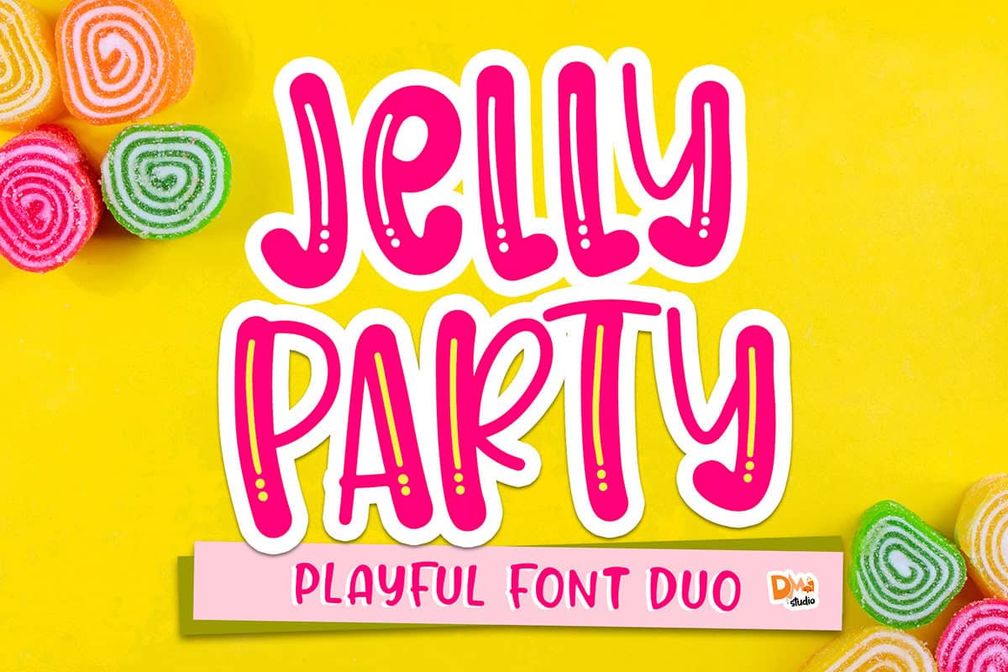
Jelly Party – Playfull Crafting Font Duo
The Jelly Party Playful Crafting Font Duo is a delightful and versatile typeface duo that brings a sense of fun and creativity to your designs. With its combination of a bold display font and a charming script font, this duo offers endless possibilities for playful and crafty projects such as party invitations, DIY crafts, labels, and more.
1. Playful and Crafty Style: The Jelly Party Font Duo exudes a joyful and whimsical aesthetic. The bold display font adds a touch of excitement and energy, while the charming script font brings a sense of warmth and handmade appeal. Together, they create a perfect balance of playfulness and craftiness.
2. Versatile Duo: This font duo offers the flexibility to mix and match between the display font and the script font, allowing you to create unique combinations and visually appealing typography. Use them together or separately to bring variety and creativity to your designs.
3. Crafty Handmade Appeal: The script font captures the essence of handcrafted lettering, adding a personal and authentic touch to your designs. It emulates the look of hand-drawn strokes and gives your projects a DIY charm.
4. Uppercase and Lowercase Letters: Both fonts in the Jelly Party Font Duo include uppercase and lowercase letters, providing flexibility and creative freedom in your designs. Combine different cases and experiment with letter combinations to achieve the desired look.
5. Ligatures and Swashes: The script font offers a selection of ligatures and swashes that enhance the visual interest of your text. These special characters add decorative flourishes and unique connections between letters, allowing you to create playful and expressive typography.
6. Punctuation and Symbols: In addition to the alphabet, the Jelly Party Font Duo includes a comprehensive set of punctuation marks, numerals, and common symbols. This ensures consistency and ease of use when incorporating the fonts into your design projects.
Let the Jelly Party Playful Crafting Font Duo inspire your designs with its playful and crafty vibe. Whether you’re creating party invitations, DIY crafts, labels, or other creative projects, this duo offers a perfect combination of excitement and handmade charm. Embrace the versatility of this font duo and let your creativity shine.